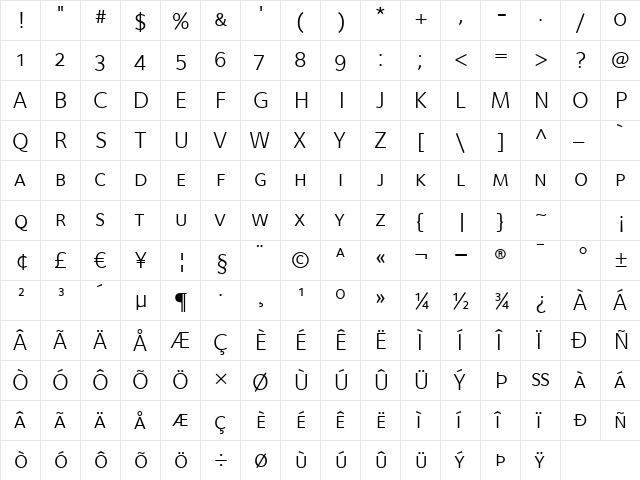
FoundrySterling-BookExpert Regular
| Designer | The Foundry |
Design Context for FoundrySterling-BookExpert Typeface
FoundrySterling-BookExpert offers clean, dependable letterforms without strong stylistic allegiance, making it a practical choice for designers who need flexibility.